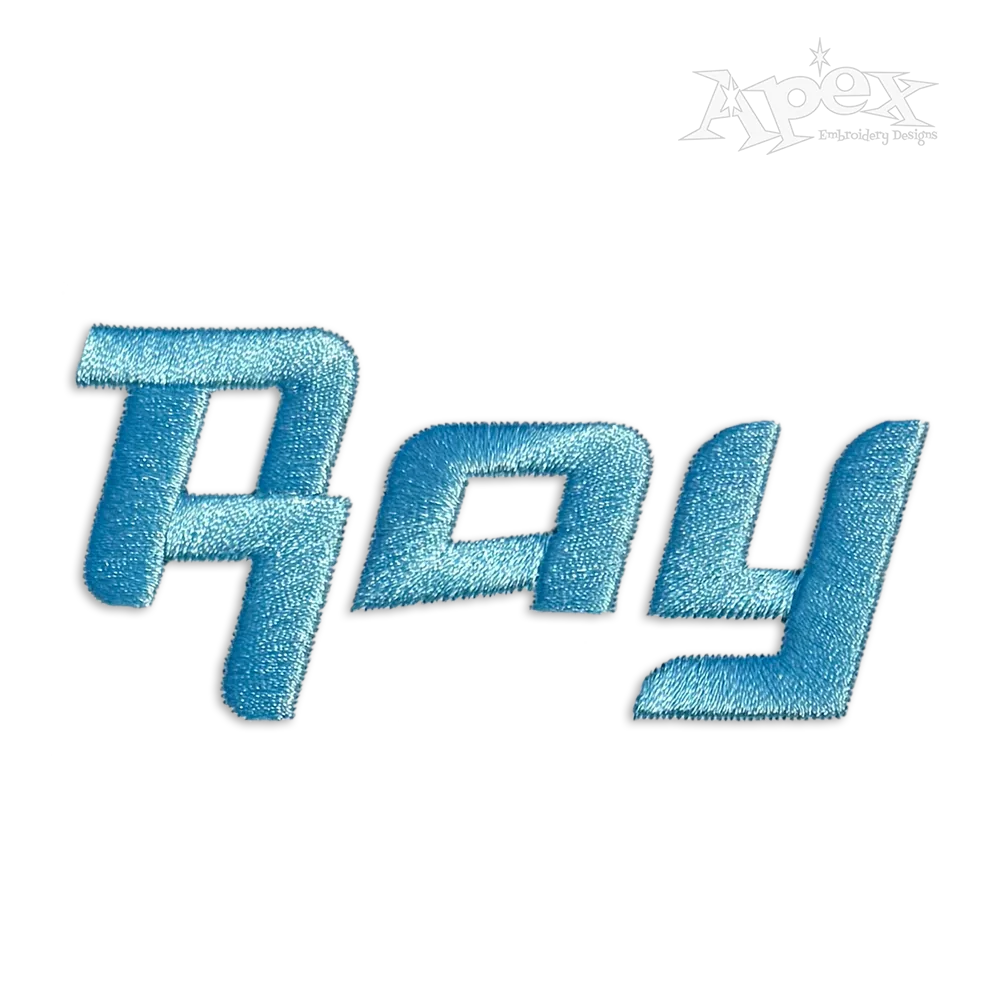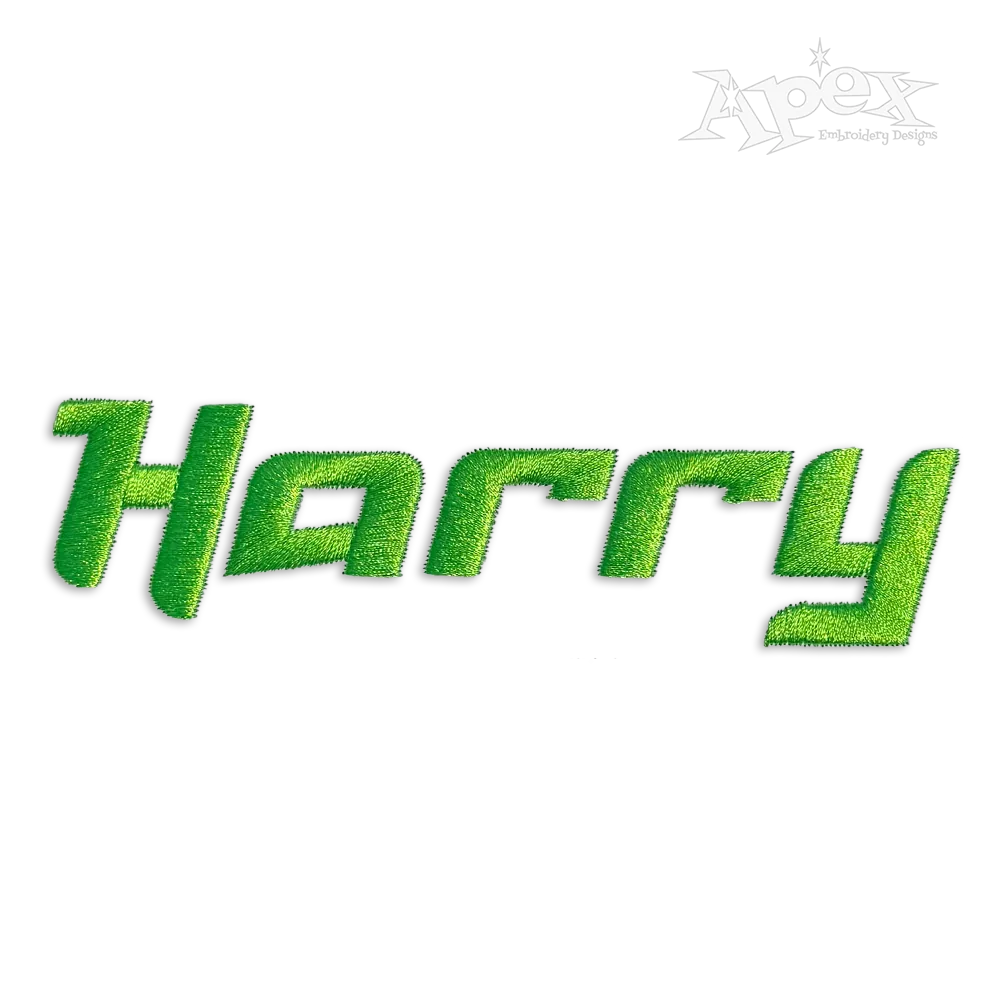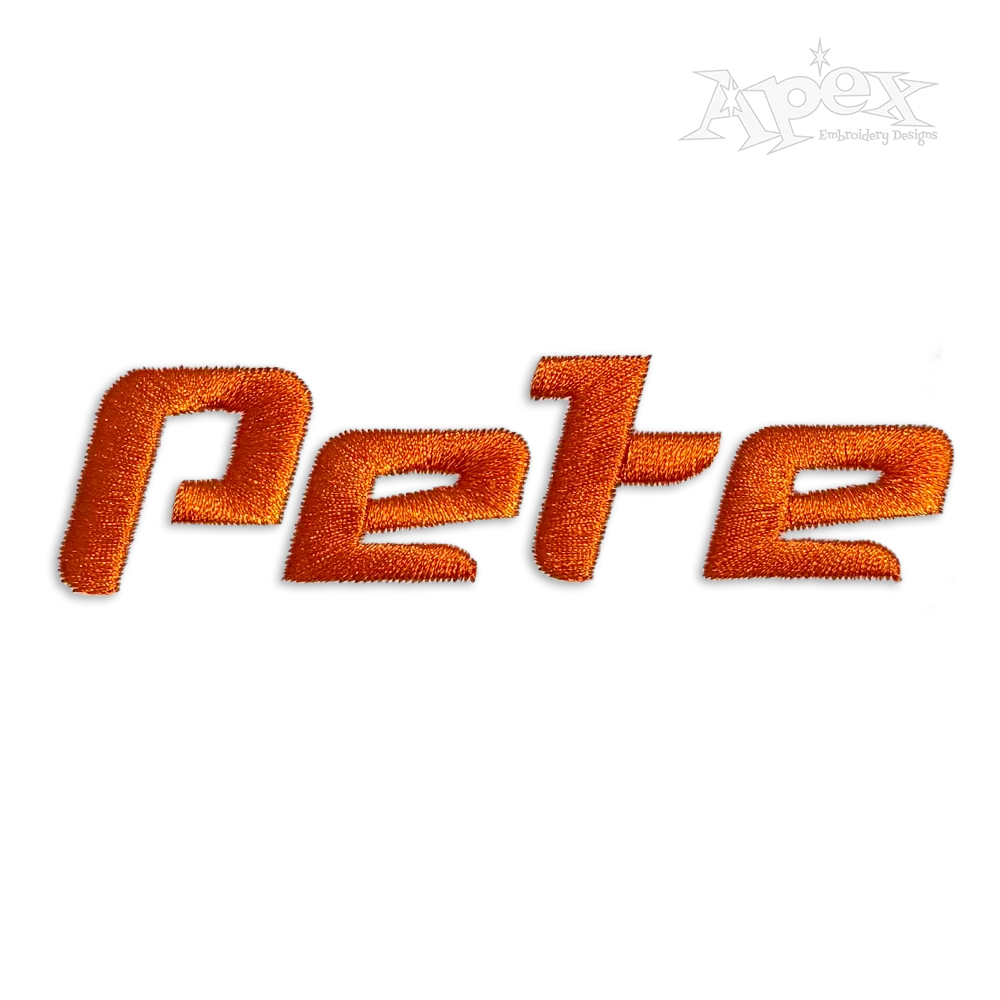
Golgi Embroidery Fonts
Conceived with an eye for modernist architectural balance, the Golgi block embroidery font brings commanding clarity, tailored elegance, and pristine geometry to the hoop. When digitizing Golgi, our goal was to strip away unnecessary ornamentation in favor of pure, confident form—a clean-lined satin stitch alphabet that feels equally at home on crisp tailored shirting, heritage table settings, and minimalist modern decor. As your embroidery machine builds each stem and intersection, the smooth density of the satin stitch catches the light with quiet luxury, imparting a bespoke, professional finish to every personalized creation.
Golgi Craft & Letterform Details
Behind Golgi’s minimalist exterior lies complex, meticulous digitizing craftsmanship. True block fonts present a unique digitizing challenge: without serifs or flourishes to mask irregularities, every stroke connection, turn, and corner must be executed with mathematical precision. Golgi was engineered using calibrated pull-compensation curves to counteract the natural tension of machine thread, ensuring that parallel stems remain genuinely straight and square edges never pull into soft, distorted rounds.
Each letterform features multi-layered underlay foundations tailored specifically to its size. The larger heights utilize an edge-run and grid underlay that lofts the satin stitching gracefully over woven textures, preventing threads from sinking into waffle weaves or high-pile terry. On the diminutive 0.5-inch size, traveling stitches are tucked neatly within column interiors to eliminate show-through and unnecessary jumps. The result is a fluid, continuous satin path that produces a mirror-flat, lustrous sheen across natural linens, structured canvas, and rich silks alike.